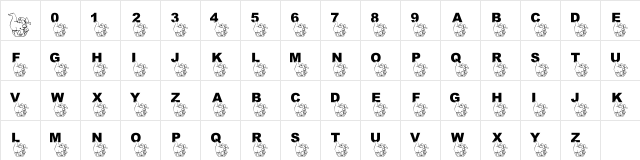
LMS Circus Seal Regular
Design Context for LMS Circus Seal Typeface
LMS Circus Seal is a composed and adaptable typeface that performs quietly and consistently across a wide range of design contexts.